logo with font
I'm trying to achieve a specific effect on a word for a logo design, but I'm struggling to get the result I want. I've tried using the Warp tool without success.
You can try 2 Warp effects in the Appearance panel. I had to scale the type 200% vertical to avoid becoming to small.
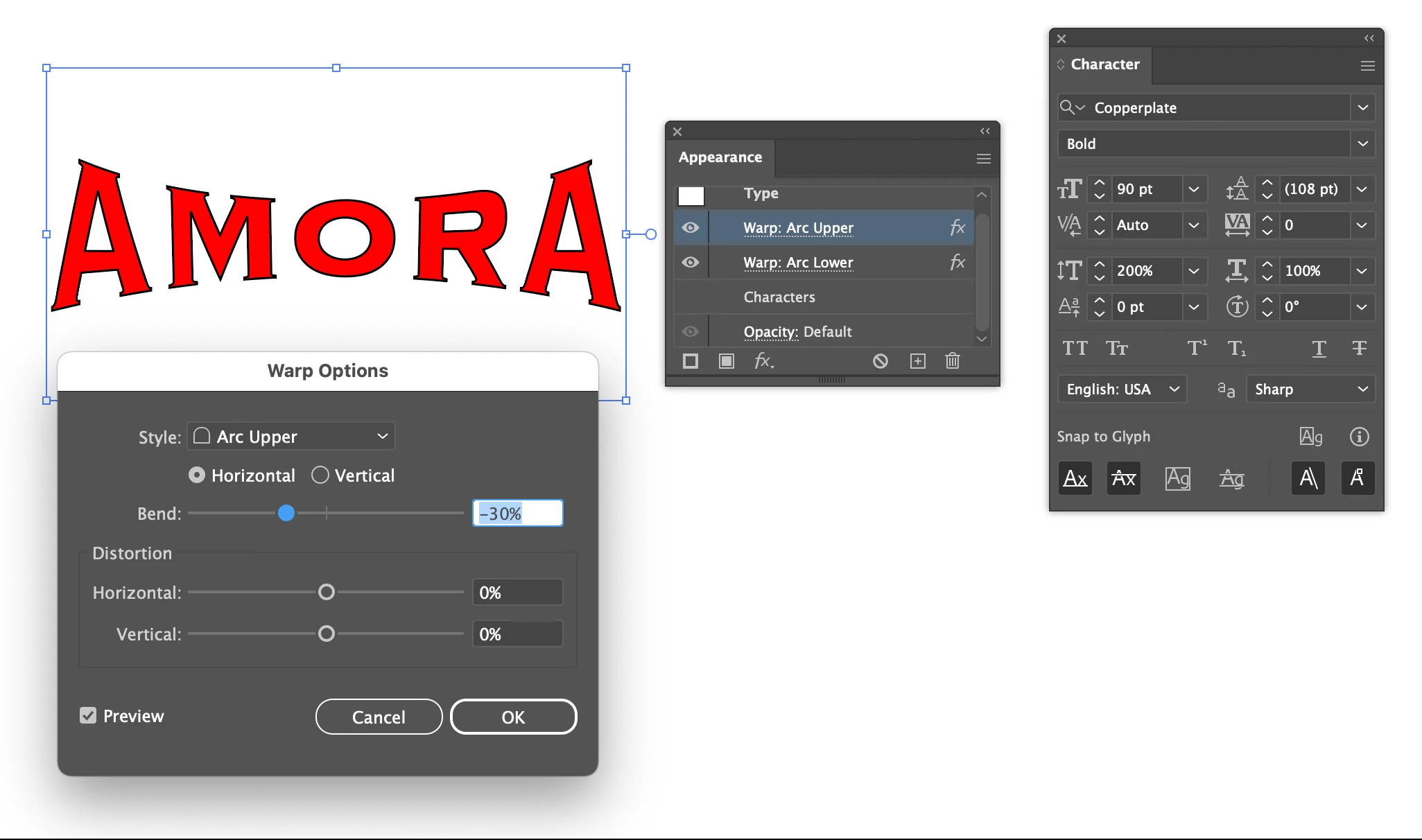
Based on the way the "Amora" letters appear in the posted PNG image it looks like they were drawn manually. Even though the letters appear warped the letter strokes are still fairly uniform, which is impossible to maintain via any distortion effect. The middle cross bar on the "R" is at an upward angle even though it is at a position where the angle should be going horizontal or downward. The blue outline around the letters is also uniform in thickness, along with having sharp serif points at various locations. The only way to duplicate the lettering accurately is by tracing it manually.
You can try 2 Warp effects in the Appearance panel. I had to scale the type 200% vertical to avoid becoming to small.
Thats really what I wanted, and it also let me play with different font without outline anything.👍
If Envelope with warp doesn't work, then probably you have to do it manually. The envelope will always also cause some unwanted distortion. It would help if you could post your result and tell us what specifically you do not like.